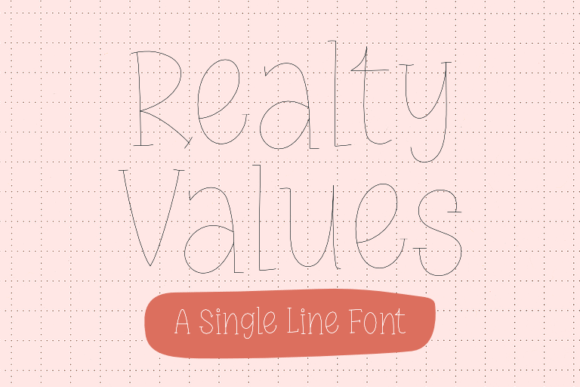
Introducing Realty Values Font, the ultimate game-changer in the world of display fonts. Created by the talented designers at Single Line Studio, this font is here to revolutionize your creative projects. With a single line design, Realty Values offers a unique and powerful visual impact that will leave your audience in awe.
Imagine the ability to transform your work into something extraordinary with just a few clicks. Realty Values Font gives you the power to do exactly that. Whether you're a graphic designer, a website developer, or a social media influencer, this font is an essential tool in your arsenal.
With its captivating simplicity, Realty Values Font brings a touch of elegance and sophistication to any project. Its clean lines and sleek curves create a modern and professional look that is sure to impress. Say goodbye to ordinary and hello to extraordinary!
But what truly sets Realty Values Font apart is its ability to make your creations unrecognizable. Yes, you read that right! With just a simple addition of this font, your designs will undergo a remarkable transformation. It adds a unique twist that captures attention and evokes emotions like never before.
Stand out from the crowd and make a lasting impression with Realty Values Font. Whether you're designing a logo, creating a stunning website, or crafting eye-catching social media posts, this font will take your work to new heights. Its versatility ensures that it can adapt to any project, making it the perfect choice for all your creative endeavors.
When it comes to finding the best font for display purposes, look no further than Realty Values. Its keyword, "Best Font For Display," truly speaks for itself. It embodies everything you need to captivate your audience, evoke emotions, and convey your message effectively.
In conclusion, Realty Values Font is not just a font; it's a game-changer. Its simple yet powerful design, created by the experts at Single Line Studio, will elevate your work to a whole new level. Don't settle for ordinary when you can have extraordinary. Download Realty Values Font today and unleash your creativity like never before!